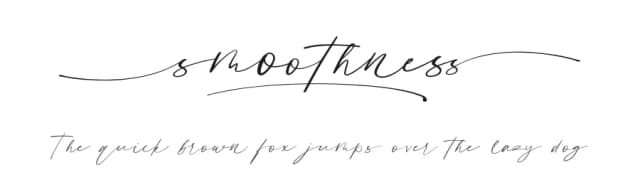
About Finest Font
Finest is a elegant handwritten font. The handwritten combined with Tail/swash font will make your design project more beautiful. Made for any professional project branding. It is the best for logos, branding and quotes.
Finest ships with 2 OpenType features you can switch on in apps that support them (Illustrator, InDesign, Affinity, Figma, CSS font-feature-settings).
Finest Font is a script font that shines as a display or heading face. Pair it with a clean sans-serif or serif font for body text β the contrast creates a clear hierarchy while the two styles stay balanced and easy to read.
Finest Font